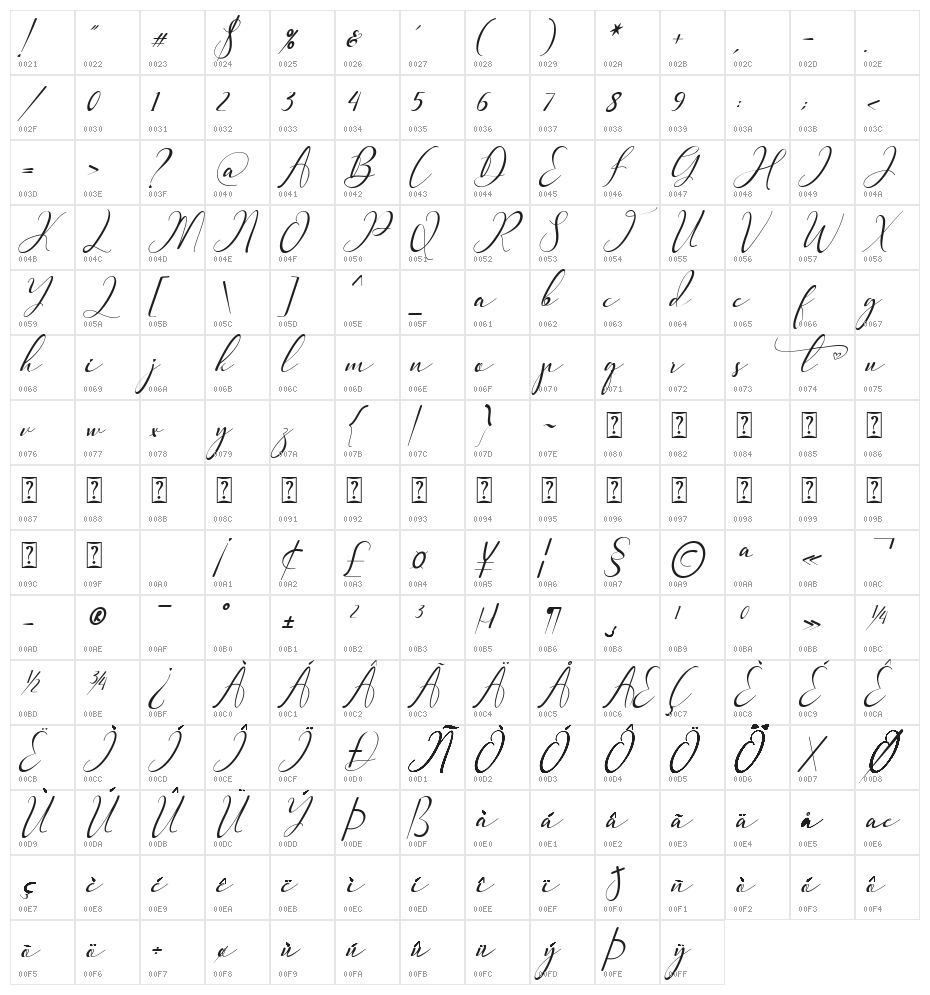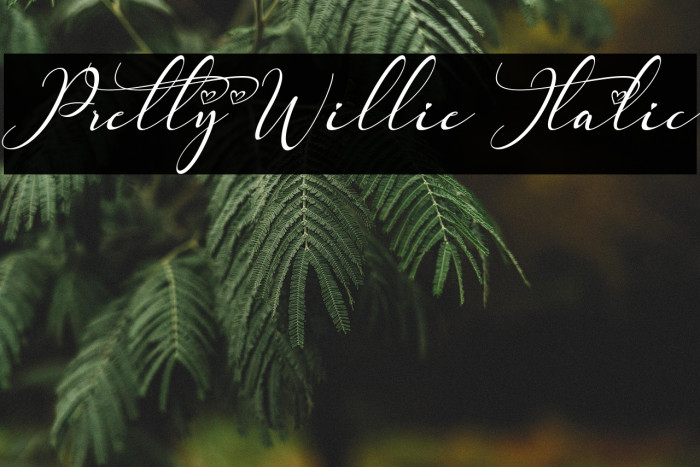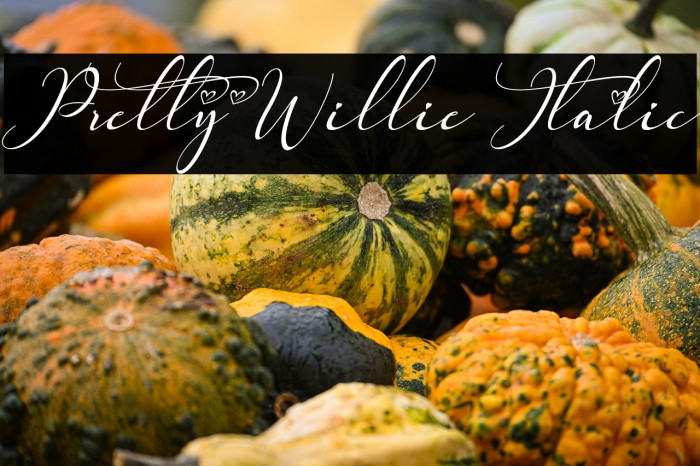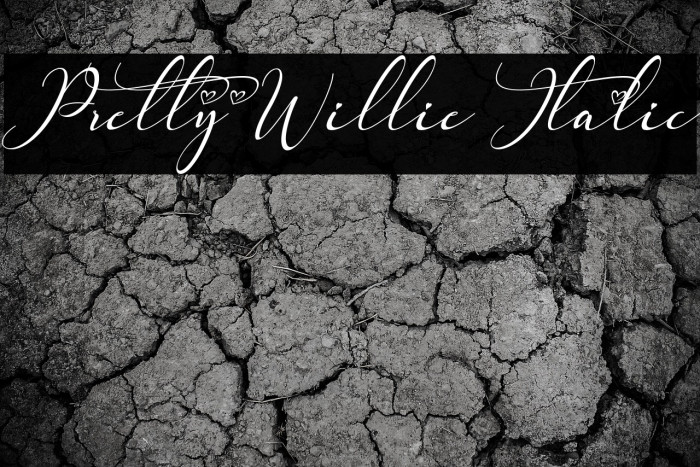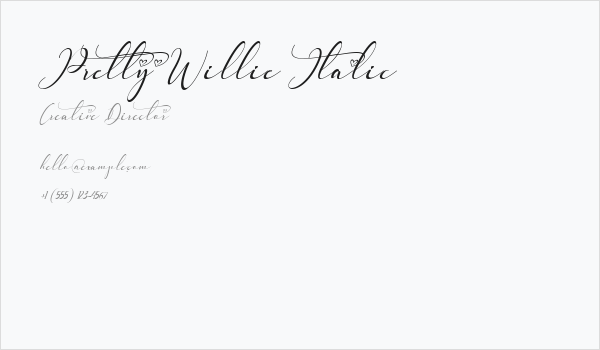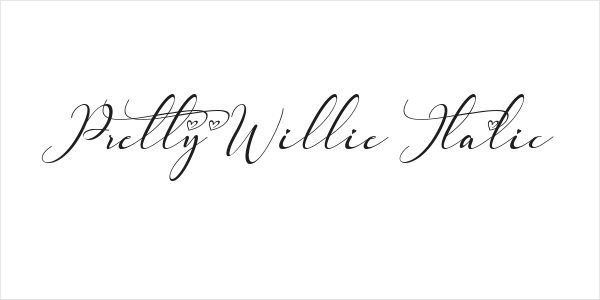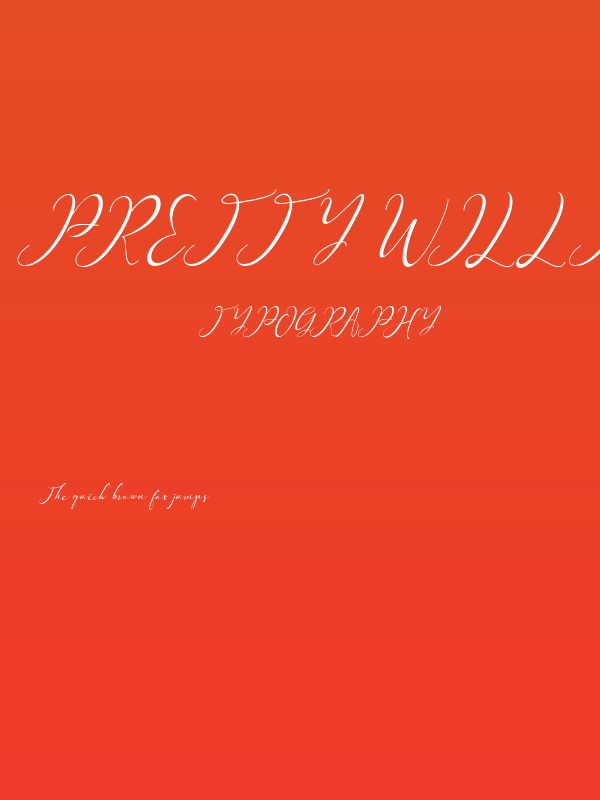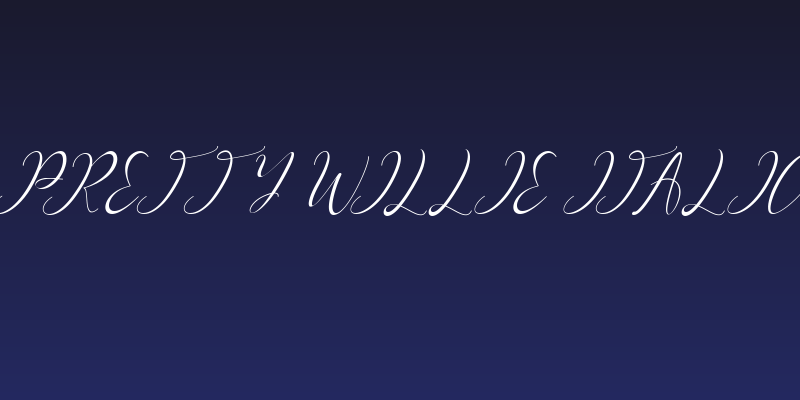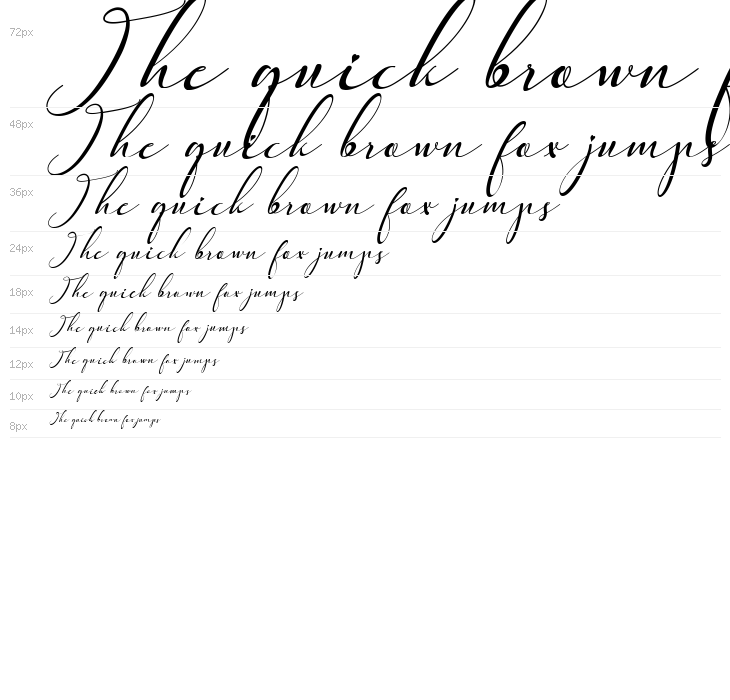
Pretty Willie Italic Font
Pretty Willie Italic Description
This font exhibits a flowing, elegant script style with a distinct italic slant, characterized by its graceful, looping strokes and delicate curves. The uppercase letters are tall and slender, with sweeping ascenders and descenders that create a sense of movement and fluidity. The lowercase letters are equally refined, featuring intricate connections and flourishes that enhance the font's sophisticated appearance. The numerals and special characters maintain this aesthetic, with consistent stroke widths and ornate detailing. Overall, this font exudes a sense of elegance and charm, making it ideal for formal and decorative applications.
| Proposed Projects | Ideal for wedding invitations, elegant branding, luxury product packaging, and decorative headlines. |